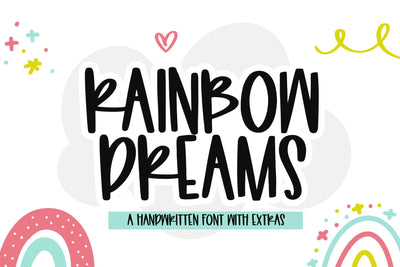
Rainbow Dreams - Handwritten Font with Extras!
RAINBOW DREAMS FONT
A bouncy handwritten font with extra font doodles!
Includes a doodle font - Rainbow Dreams Extras - with 52 decorative doodles!